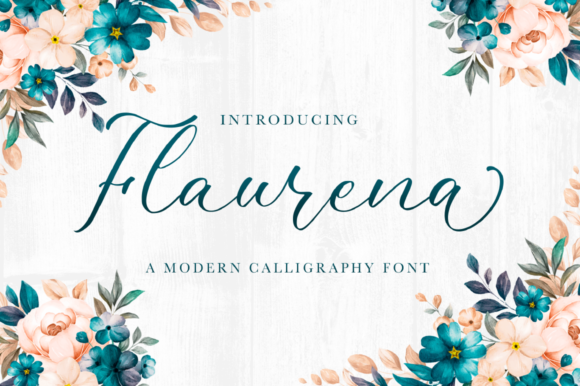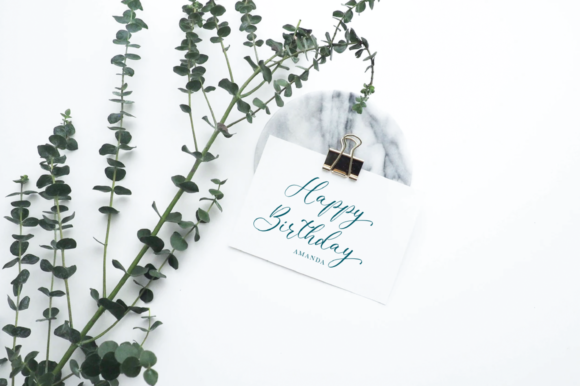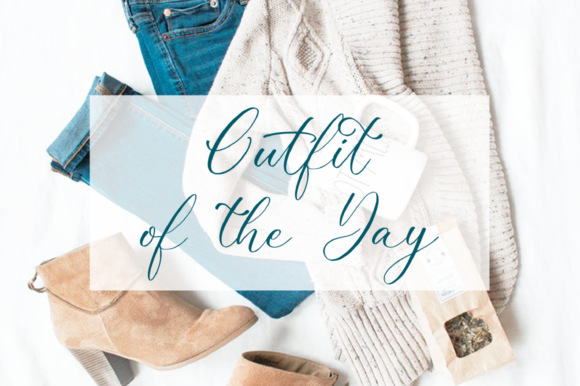
Flaurena Font
About Flaurena Font
Flaurena is a lovely and timeless handwritten font. It is the best choice for creating eye catching logos, branding and quotes. This font is PUA encoded which means you can access all of the glyphs and swashes with ease!